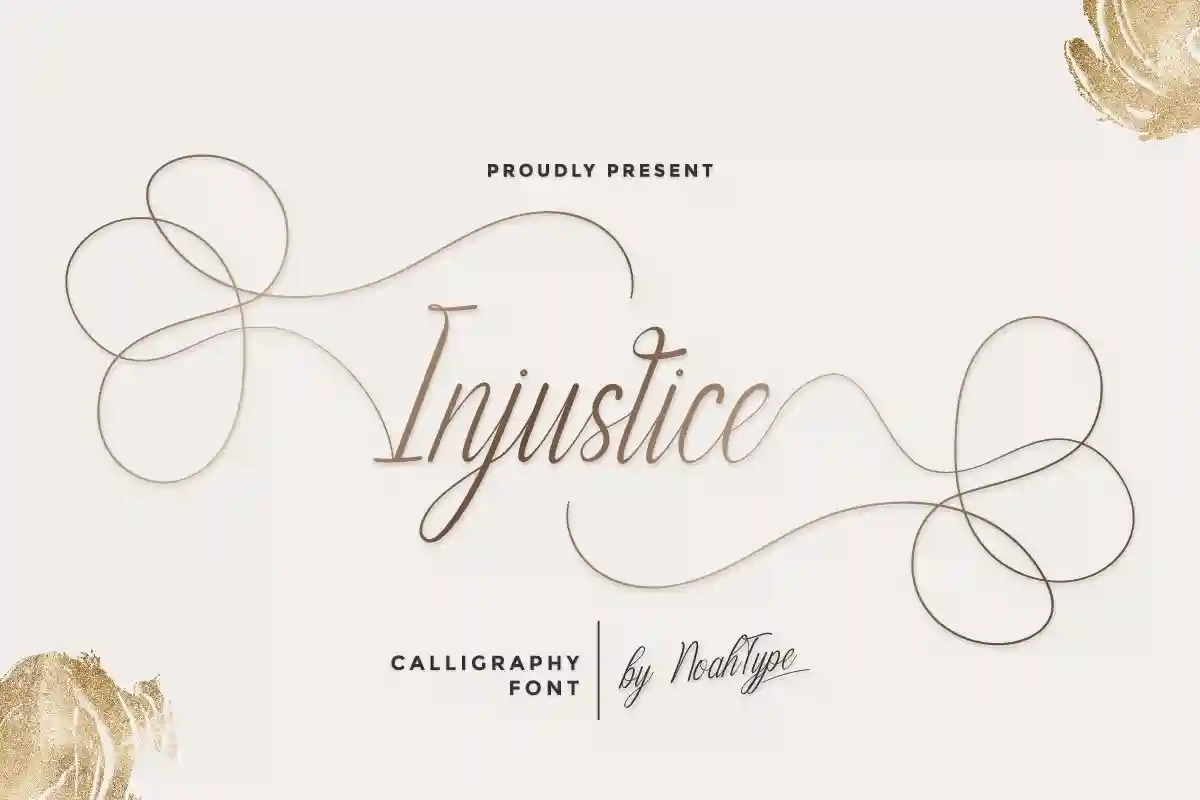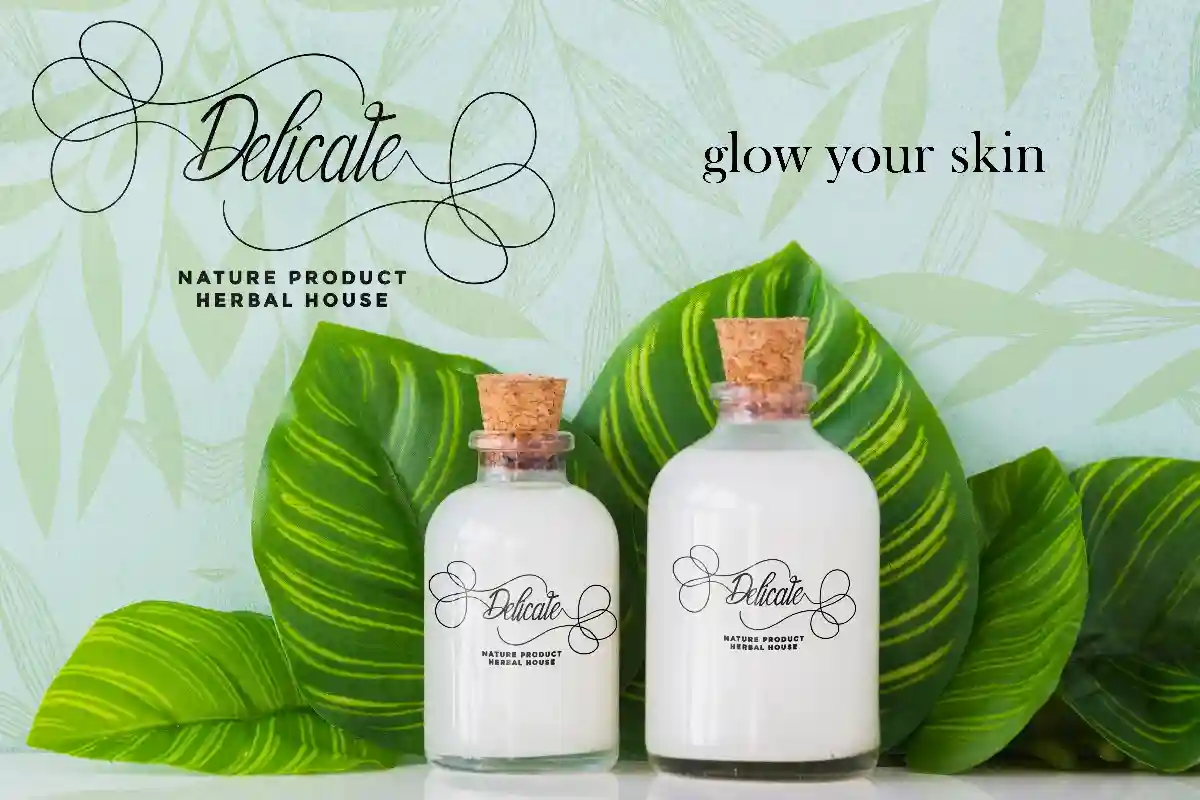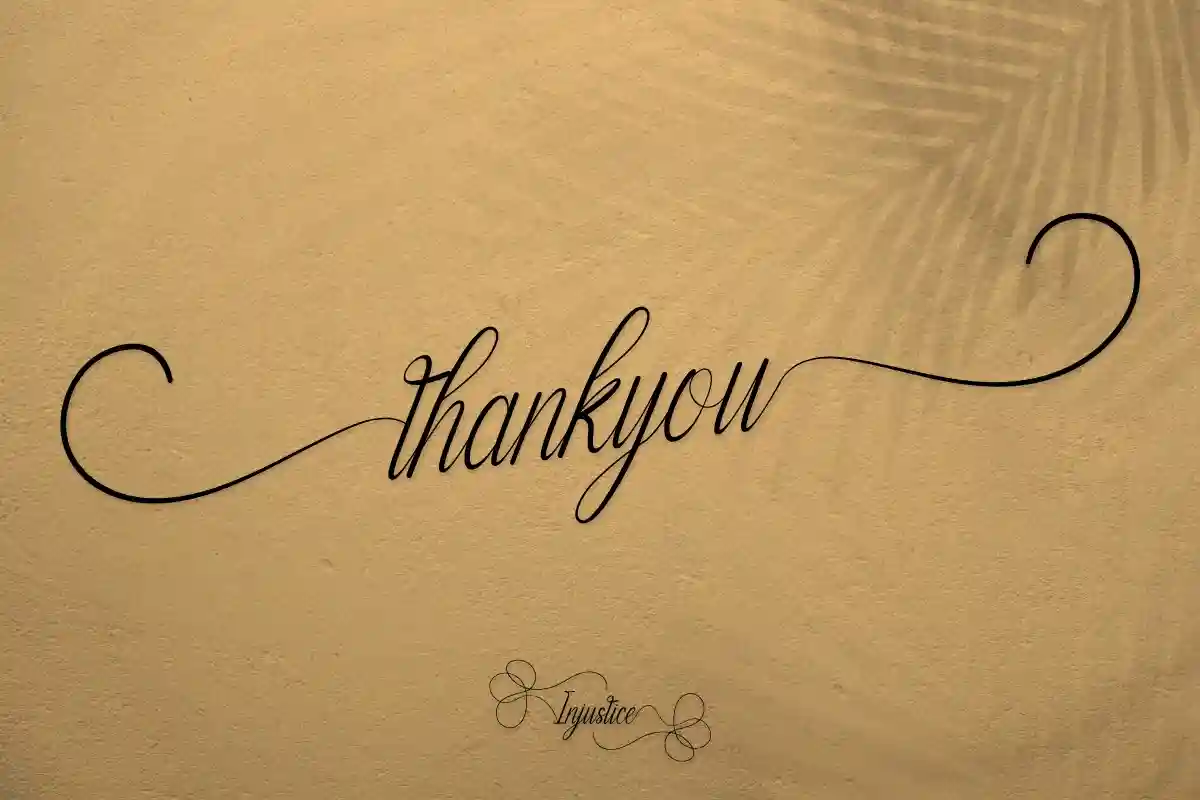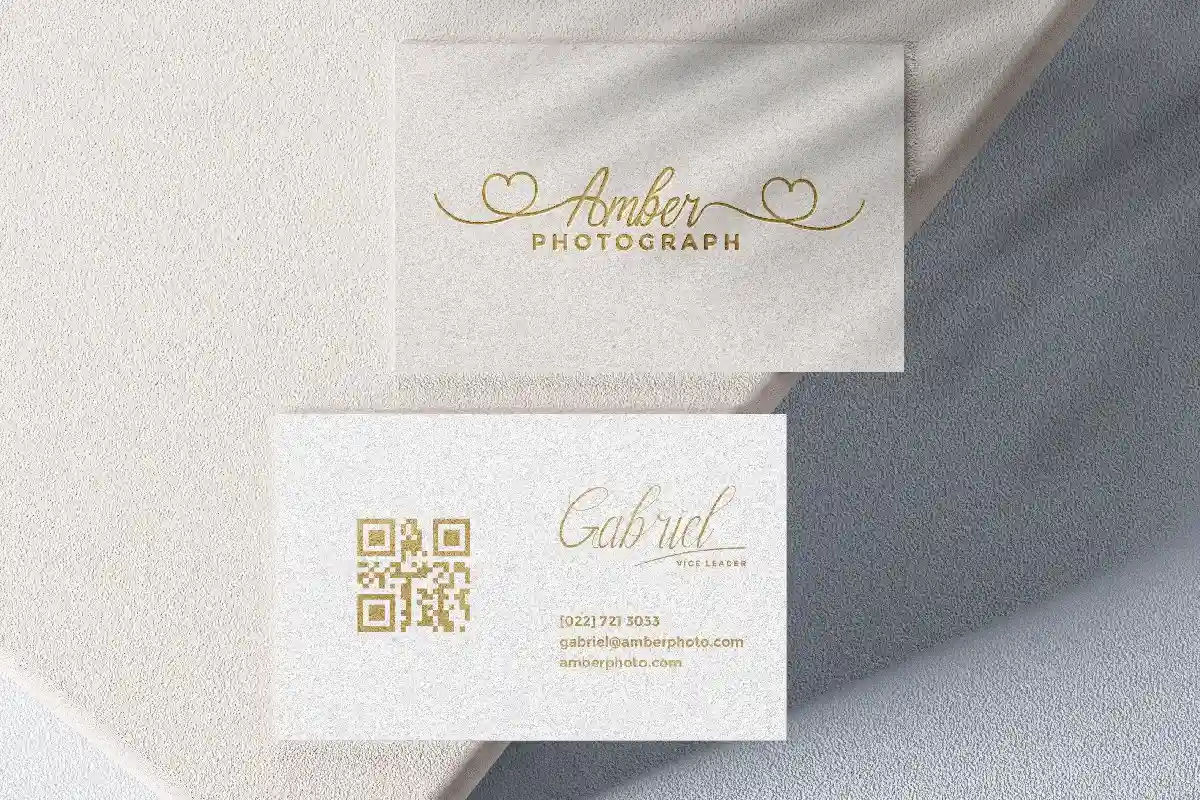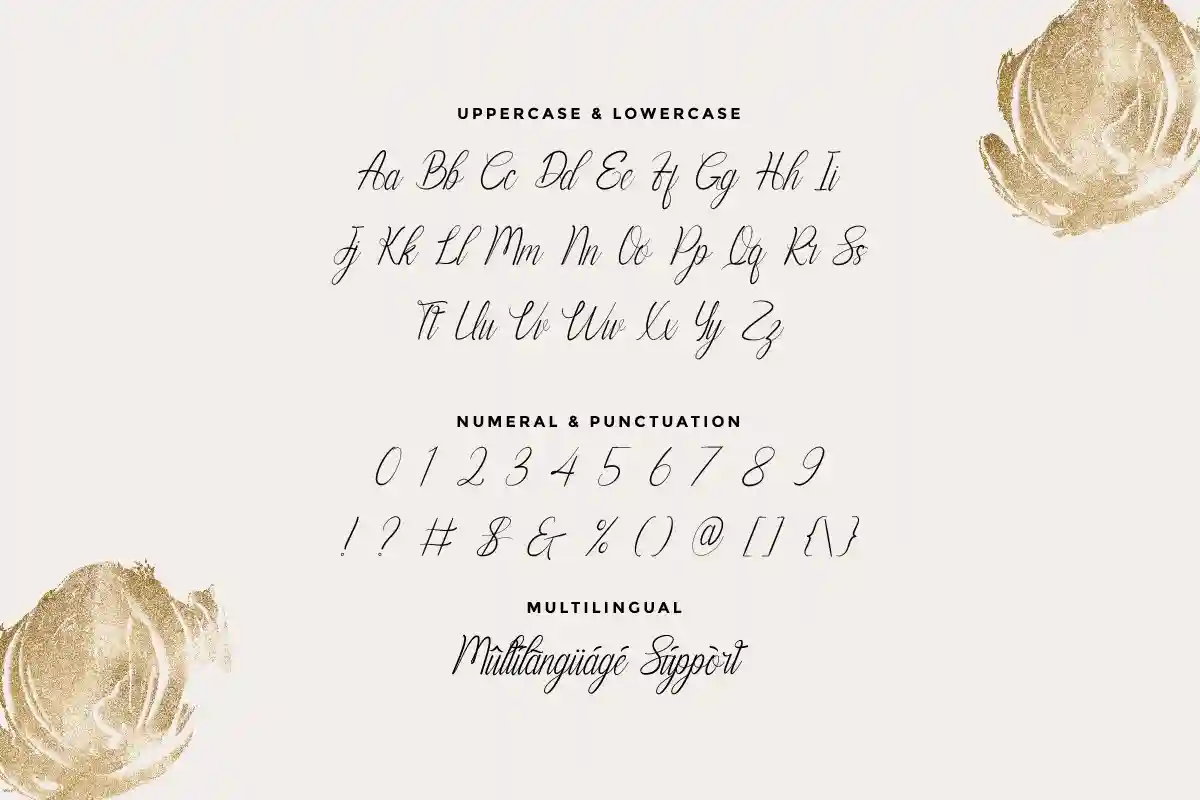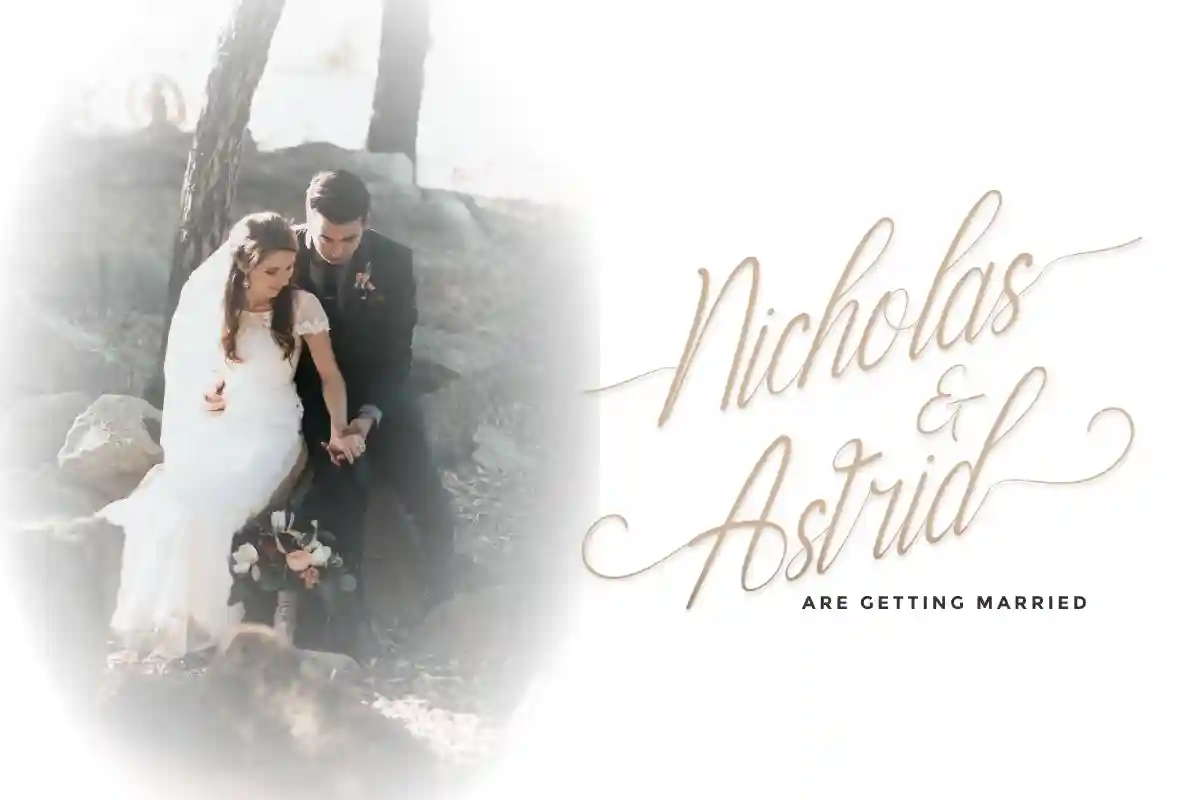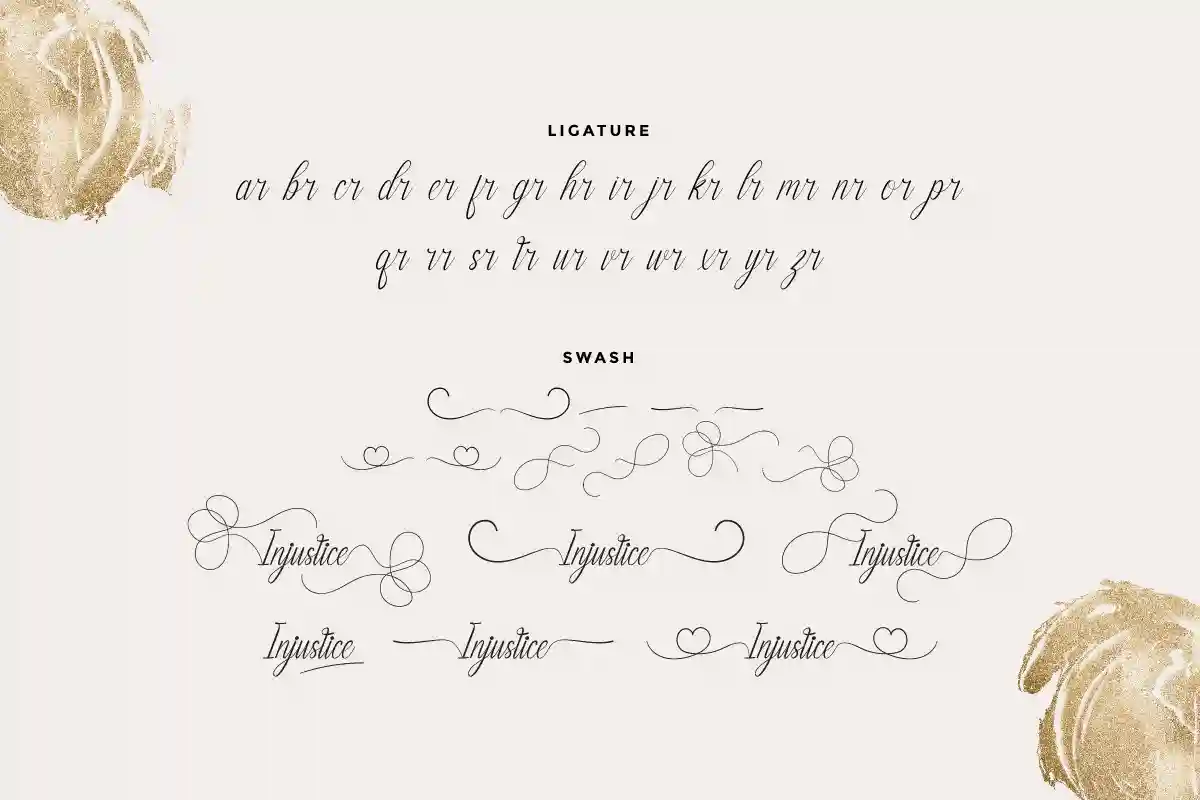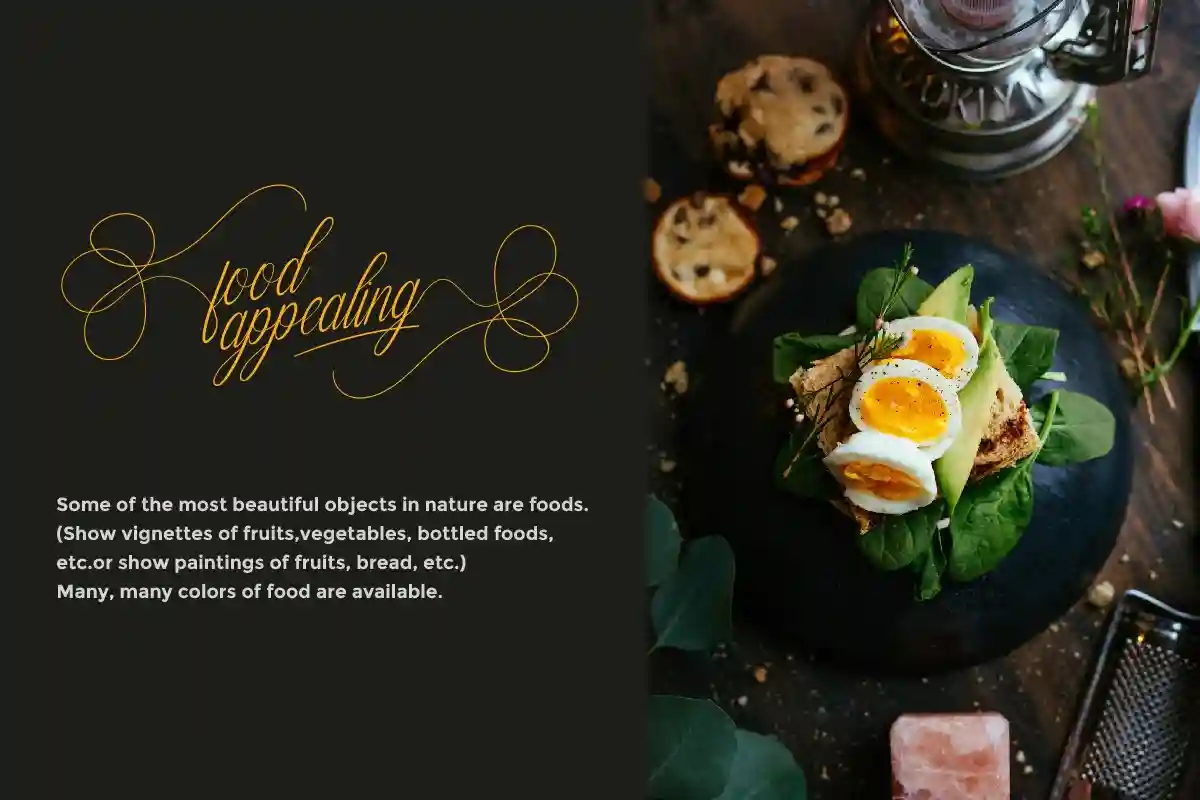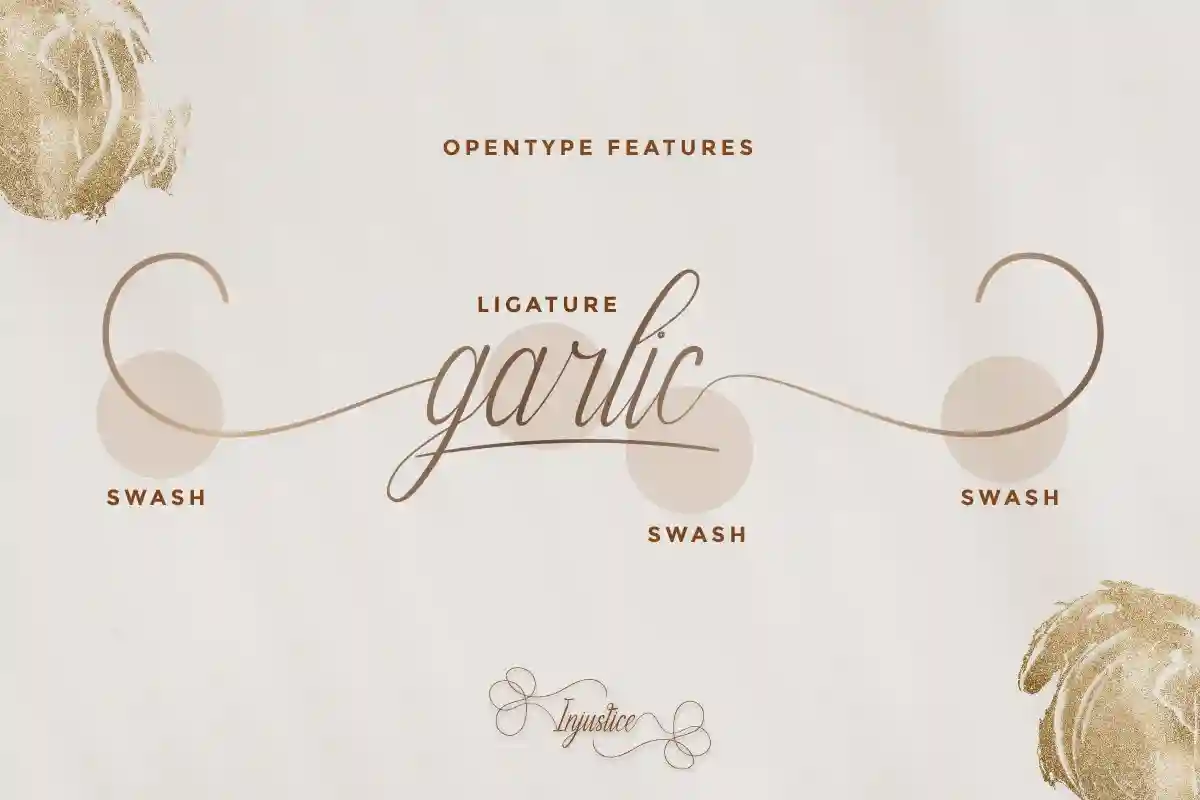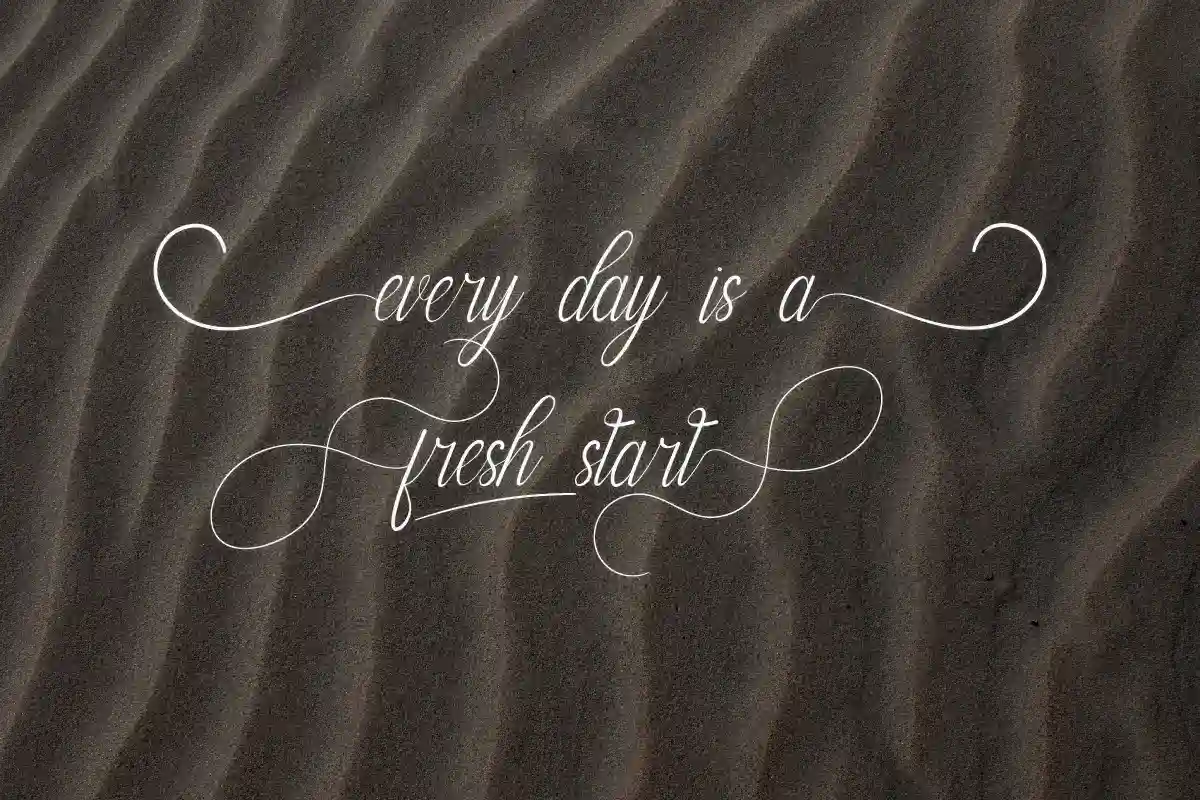
Injustice Font is a beautiful calligraphy handwriting font with modern characters inspired by classic hand lettering and sophisticated branding designs. This font is crafted carefully in every its single scratch, created to look as close to a natural handwritten script so that it can create the perfect combination on each glyph. When we make this font, we really want to create a touch that is so free-flowing that it gives a natural impression on its use later.
For example, if you want letter ‘s’ that has a flow sketch with letter ‘t’, you can find it in ‘st’ ligature glyph (just type in the text form below for trying). This awesome script is for anyone who are needing of elegance and stylish for their designs.
Injustice Font includes full set of Uppercase and Lowercase Basic Characters, Numerals and Punctuation. Also it contains ligatures and alternates characters to perfectly make natural handwriting look that add more beautiful and aesthetic fonts to perfect your extraordinary project.
Injustice will be great for branding, logotype, social media post, poster, invitation, watermark, lettering and many more